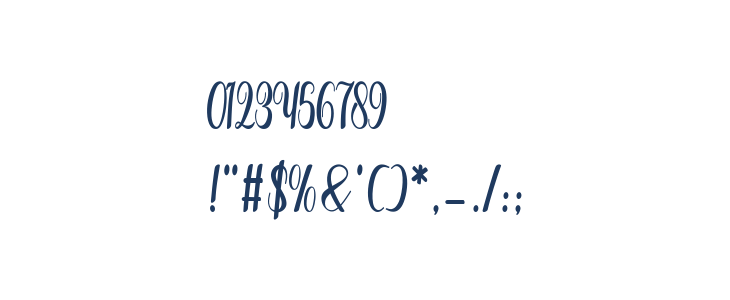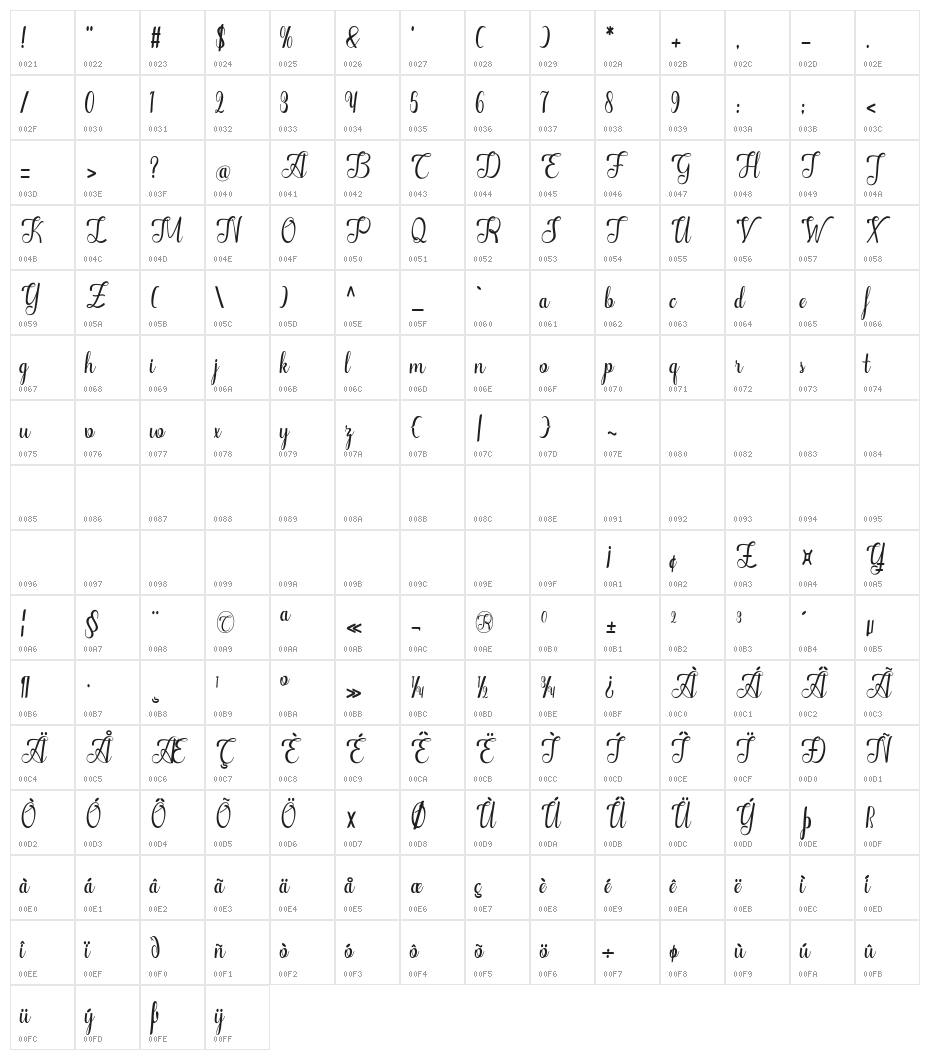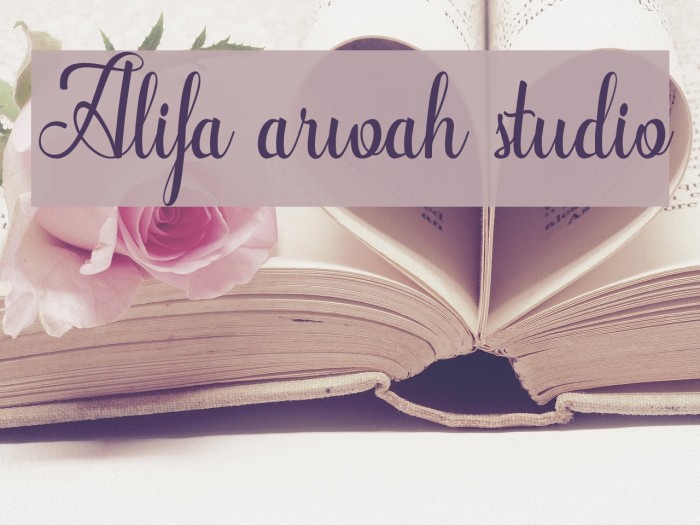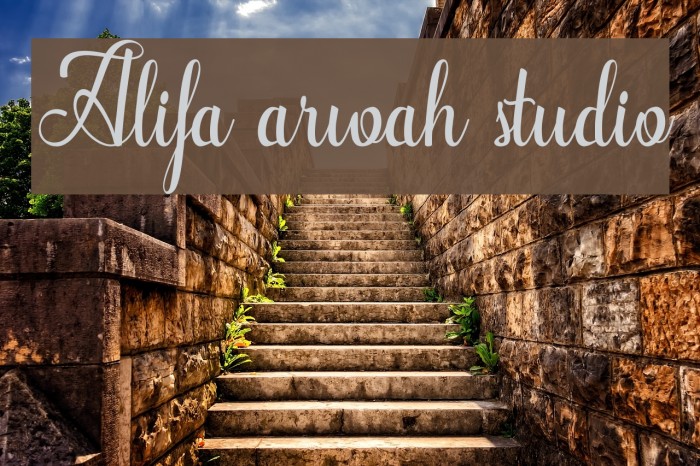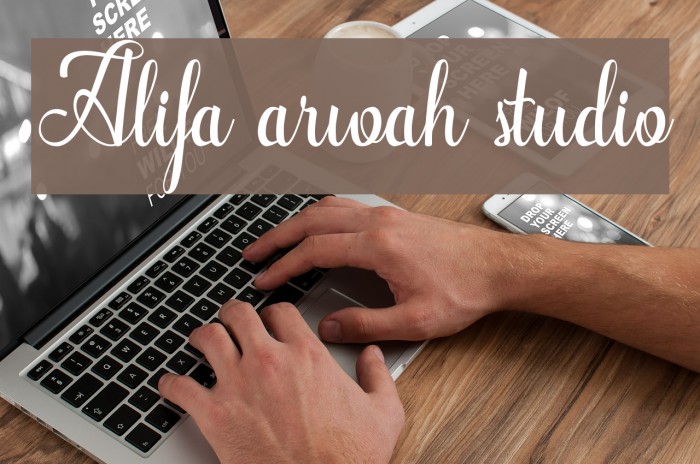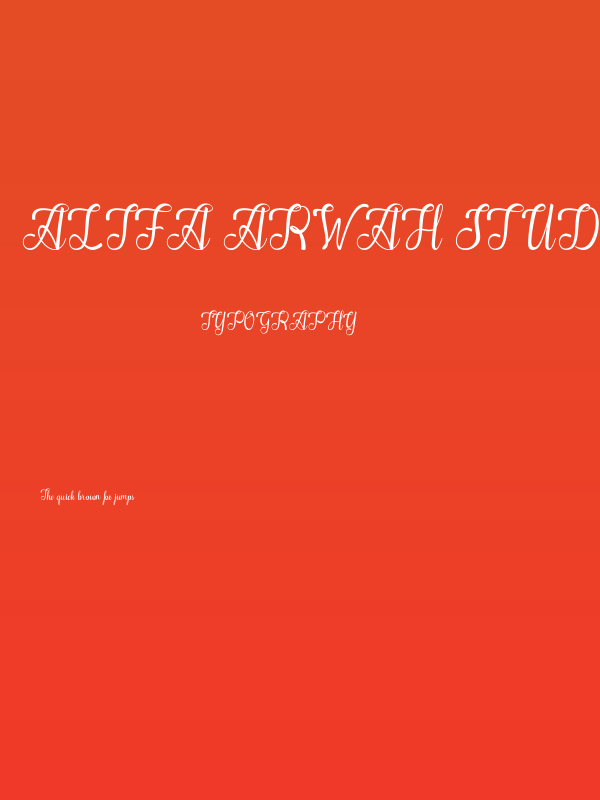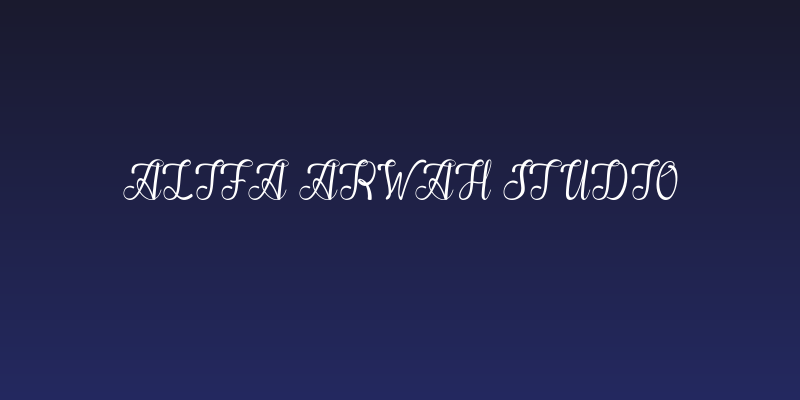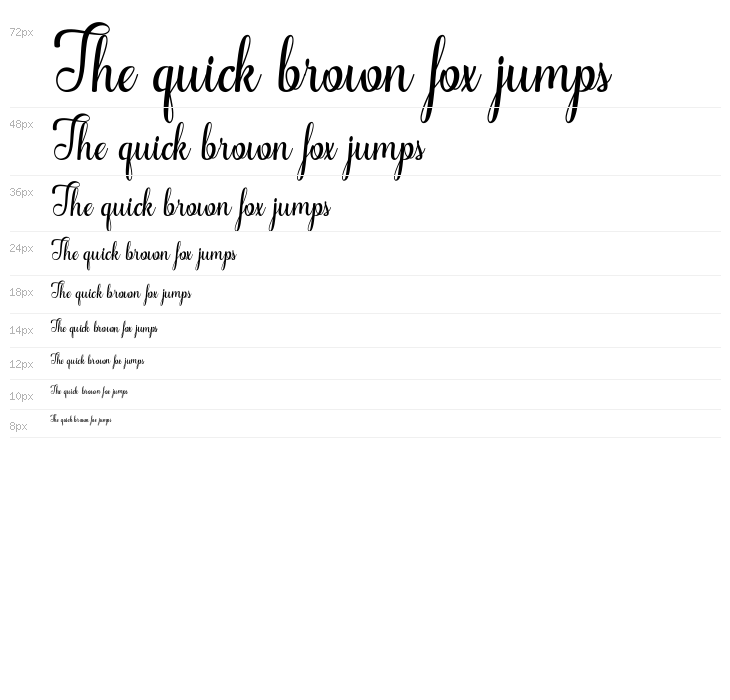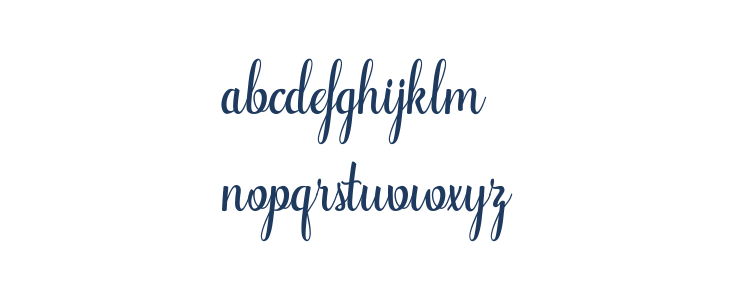
Alifa arwah studio Font
Alifa arwah studio Description
This font features an elegant and flowing script style, characterized by its smooth, cursive strokes and intricate loops. The uppercase letters are ornate, with flourishes that add a touch of sophistication, while the lowercase letters maintain a consistent flow, enhancing readability. The numerals and special characters are designed to complement the overall aesthetic, maintaining the same graceful curves. This font exudes a sense of elegance and refinement, making it ideal for projects that require a touch of class and sophistication.
Overall StyleElegant
Use CaseLogos, Invitations, Decorative text
Proposed ProjectsIdeal for wedding invitations, elegant branding, greeting cards, and luxury product packaging.